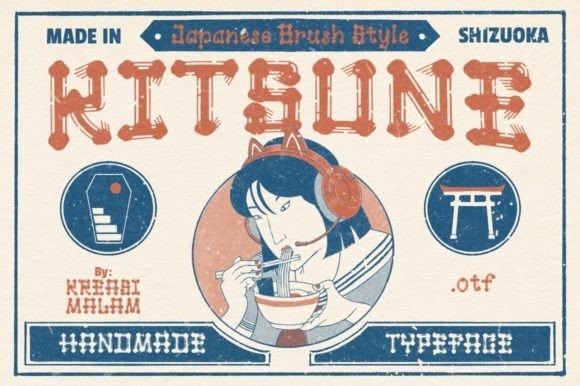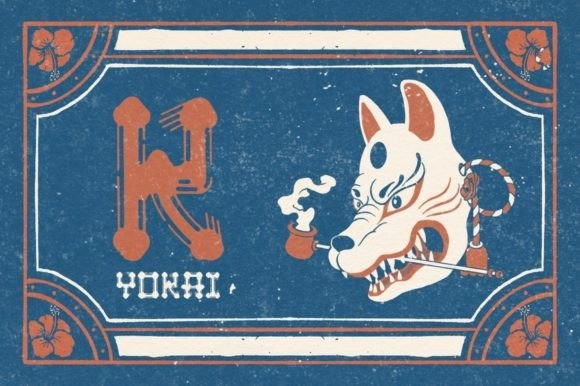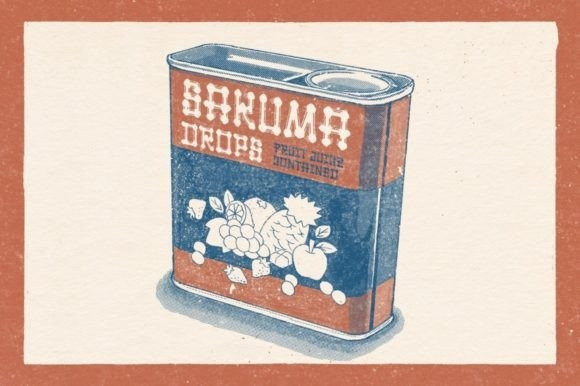
Kitsune Font
Kitsune a handmade font with Japanese style would be awesome for your design projects. It could be fitted for logos, quotes, t-shirts, posters or anything. Available in uppercase, lowercase, numerals and punctuations.